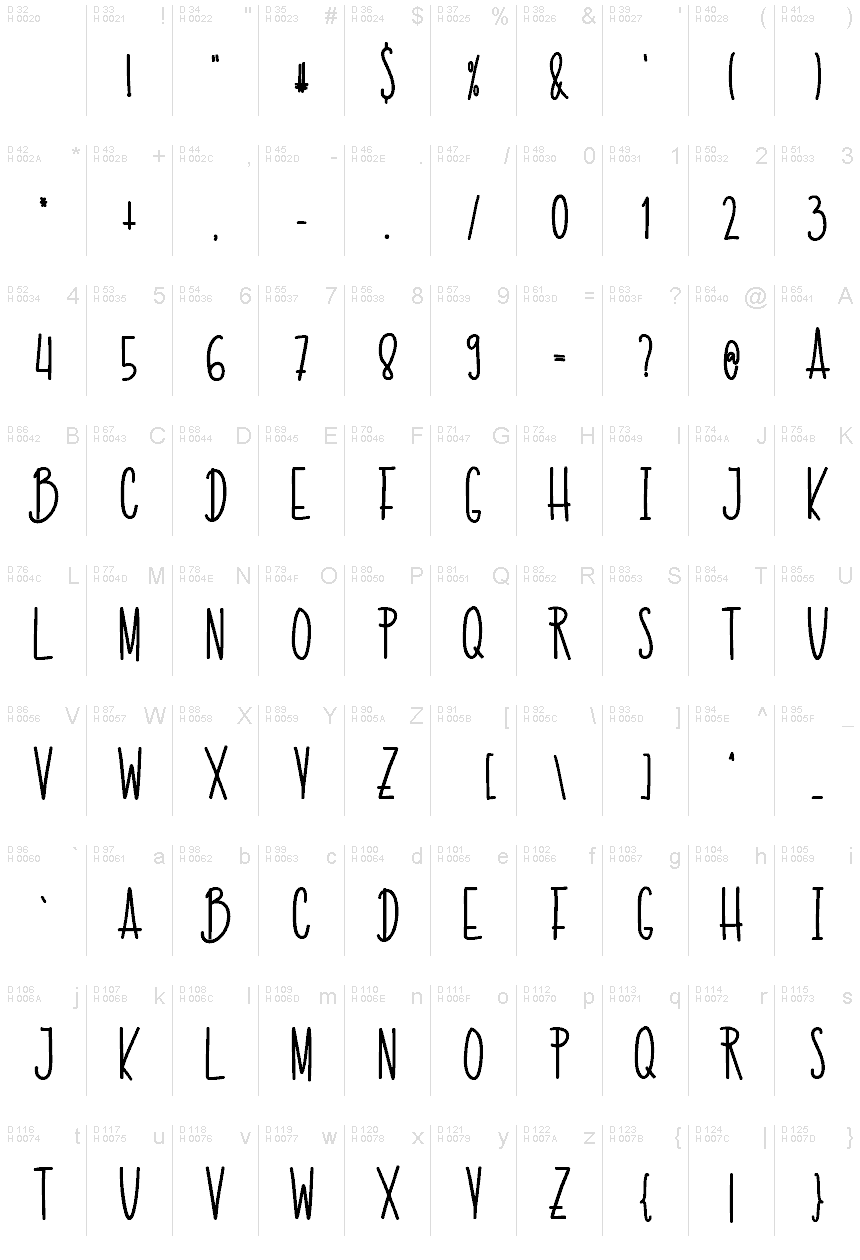
Simple Notebook
\nSimple Notebook font by Goodrichees is a handwritten condensed font with a hand-drawn appearance. The whimsical typeface certainly has a casual style to its design which combines both creativity and functionality. Its vintage-inspired feels come alongside strong characters driven by artistic vibes that appeal to audiences.